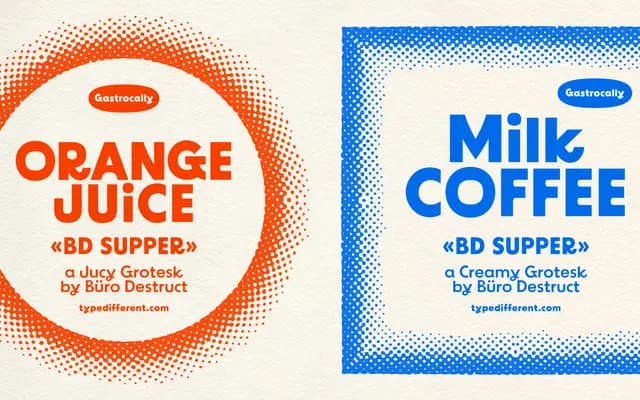
BD Supper
A two-weight geometric-organic sans with a rounded, cartoonish character suited to food packaging and gastronomy branding.
Built on geometric foundations softened with organic curves, it occupies a cheerful register somewhere between children's illustration and contemporary FMCG packaging. Two weights, Regular and Bold, cover basic hierarchy needs from body text to headlines, and three stylistic sets plus a wide set of alternate characters give designers room to adjust the personality. The glyph set covers a broad range of Latin-based European languages.
Described by the foundry as geometric-organic, the letterforms blend circular geometric construction with soft, rounded organic details giving it a cartoonish, playful character distinct from neutral geometric grotesques.